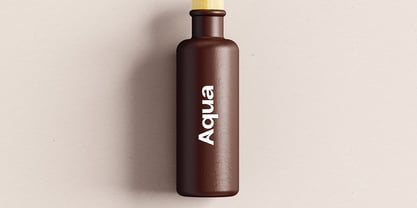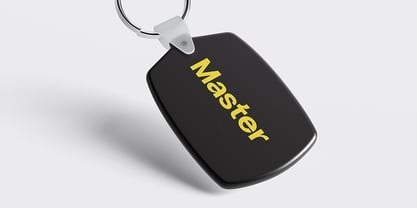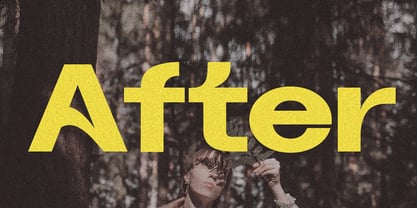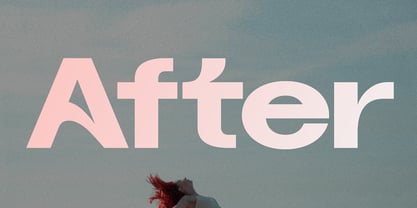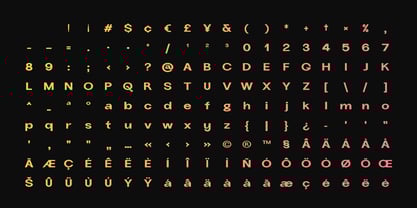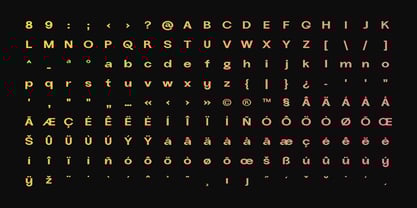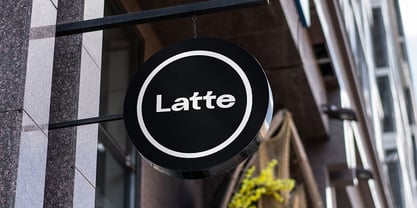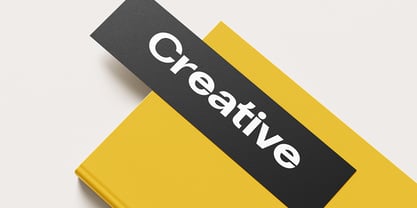
After Display
by Webhance
The After Display Font Family was designed by Ancy George and published by Webhance. After Display contains 1 styles.
Introducing After, a sleek and versatile sans-serif typeface crafted for designers who seek simplicity with a touch of sophistication. Designed with precision, this font delivers a clean, modern aesthetic that enhances any creative project, from branding to web design.
With its balanced proportions and refined letterforms, After ensures outstanding readability while maintaining a stylish, contemporary look. Whether you're designing logos, headlines, presentations, or editorial layouts, this font brings a polished, professional feel to your work